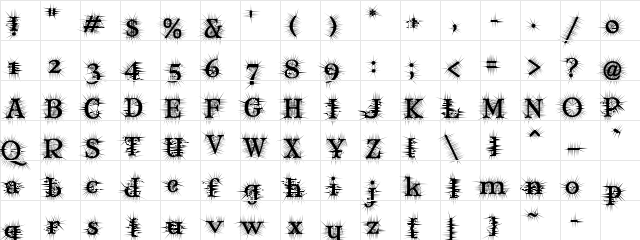
Mary Jane deGroot Regular
Design Context for Mary Jane deGroot Typeface
Mary Jane deGroot is a composed and adaptable typeface that performs quietly and consistently across a wide range of design contexts.
Pro Tip: Use Mary Jane deGroot in both headline and body roles to test its range before committing to a single application.